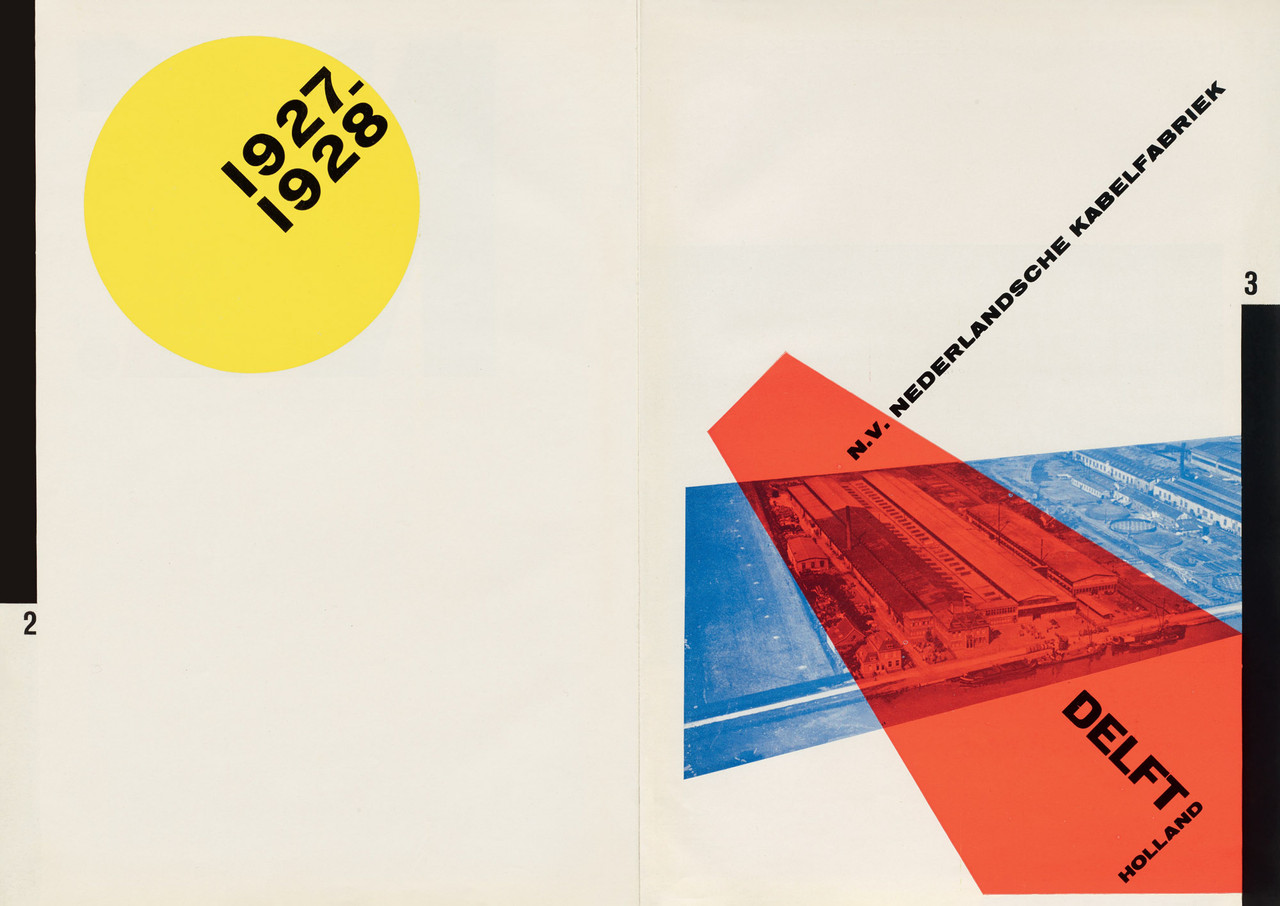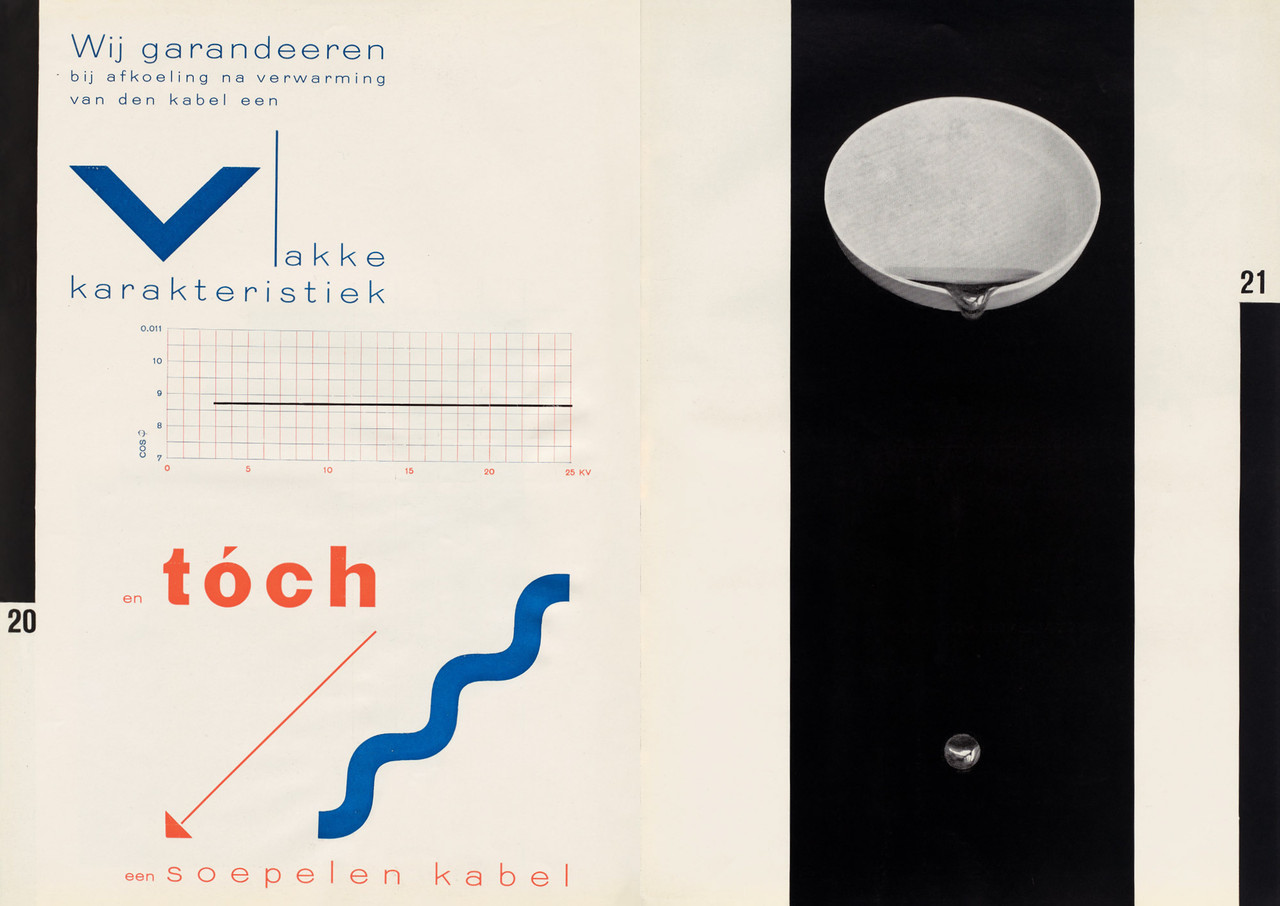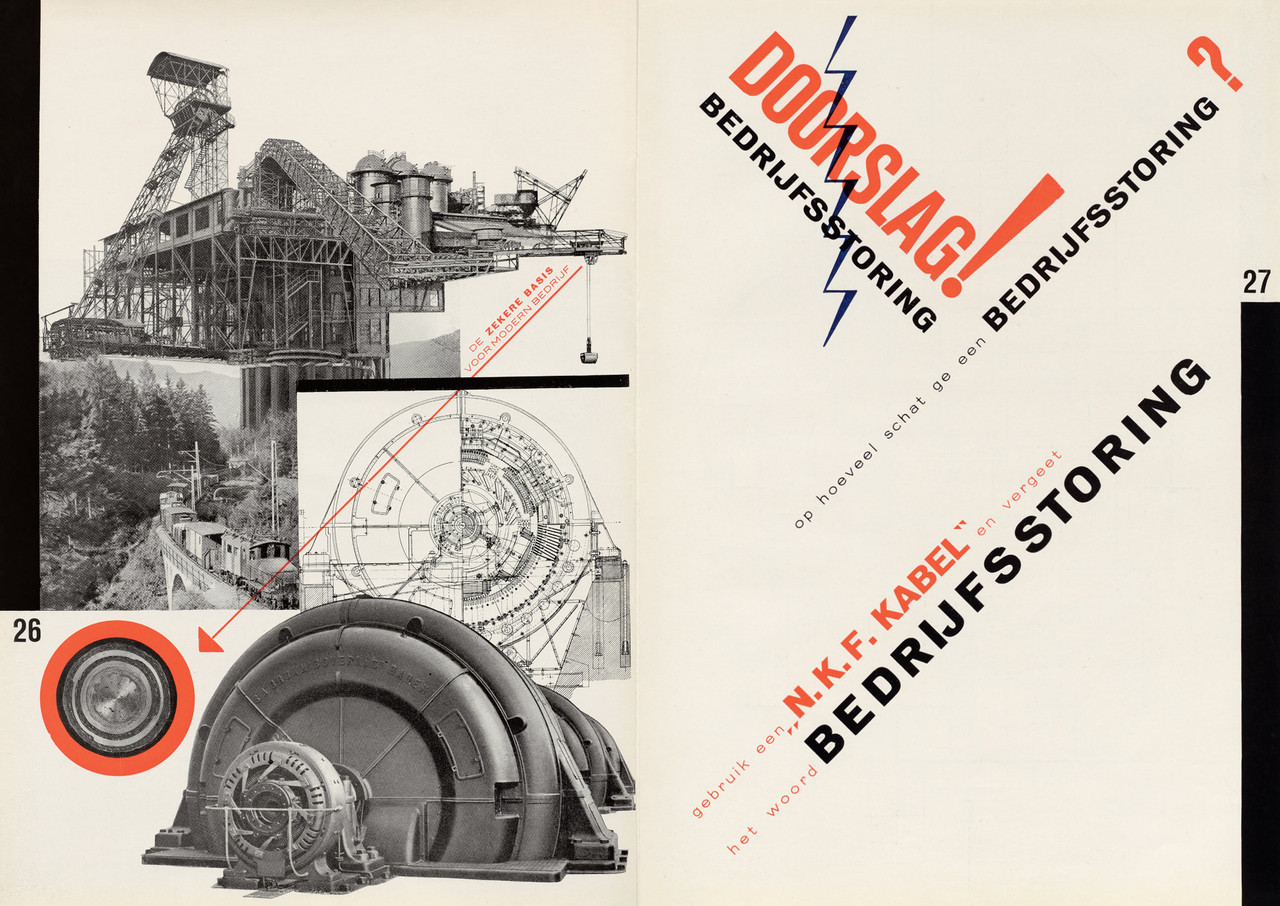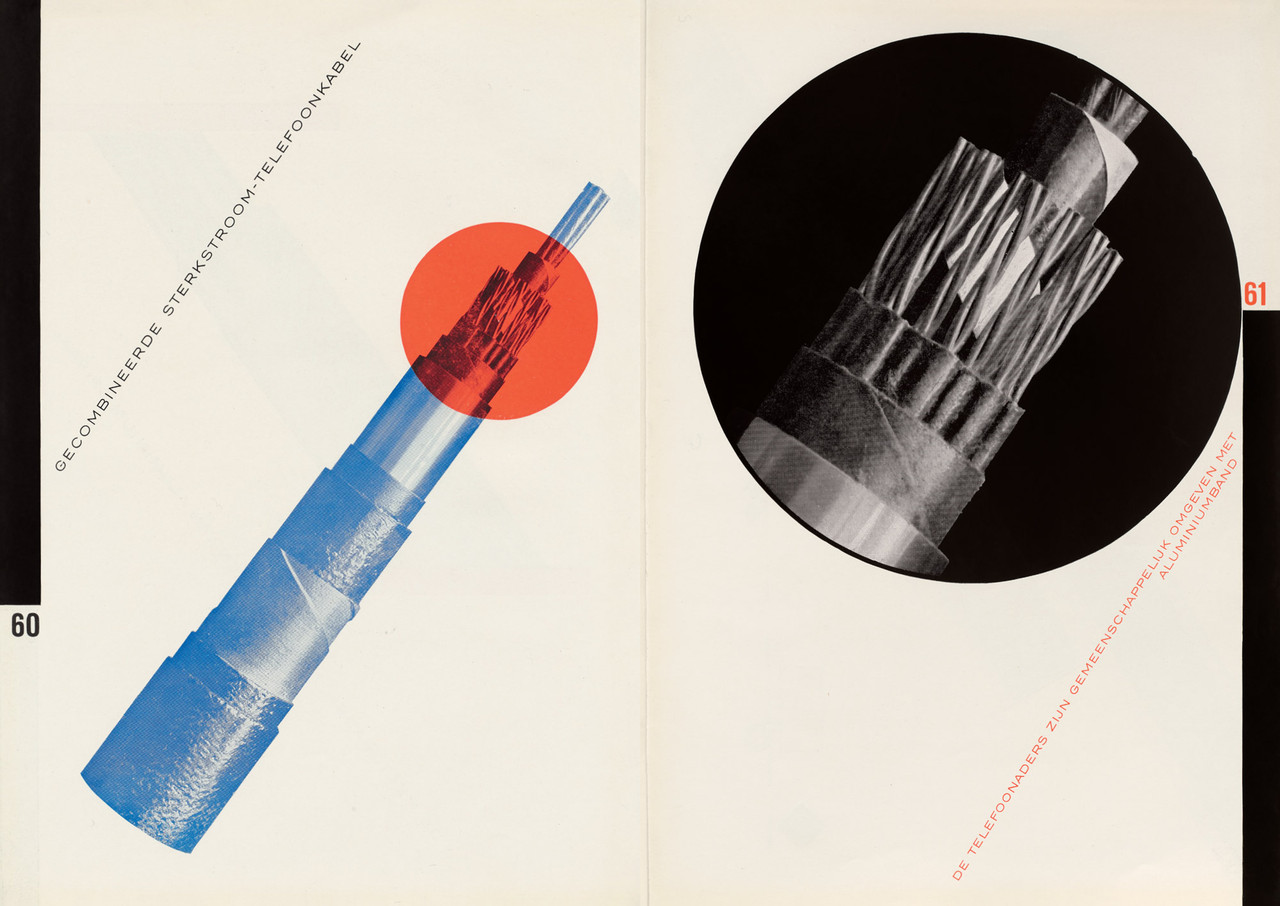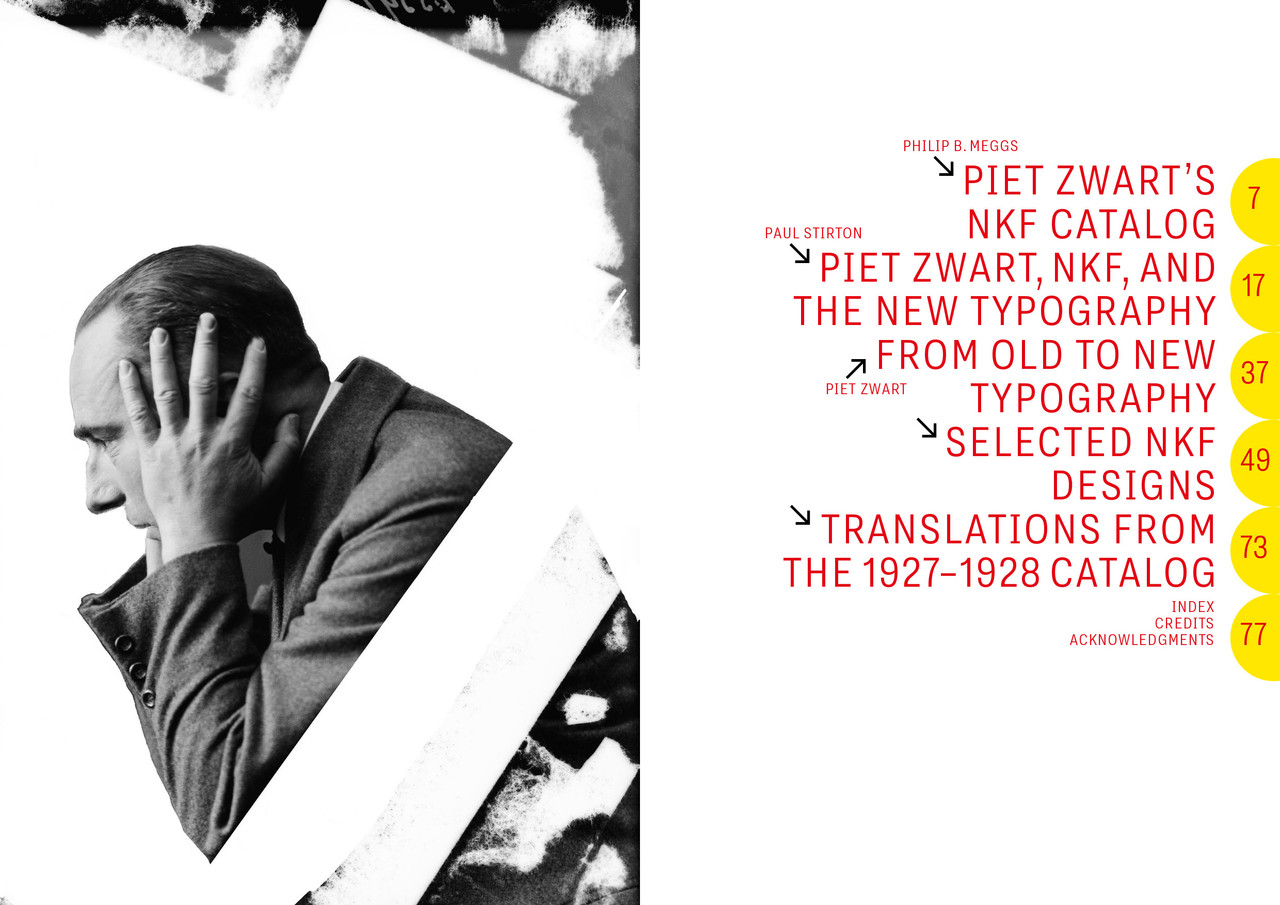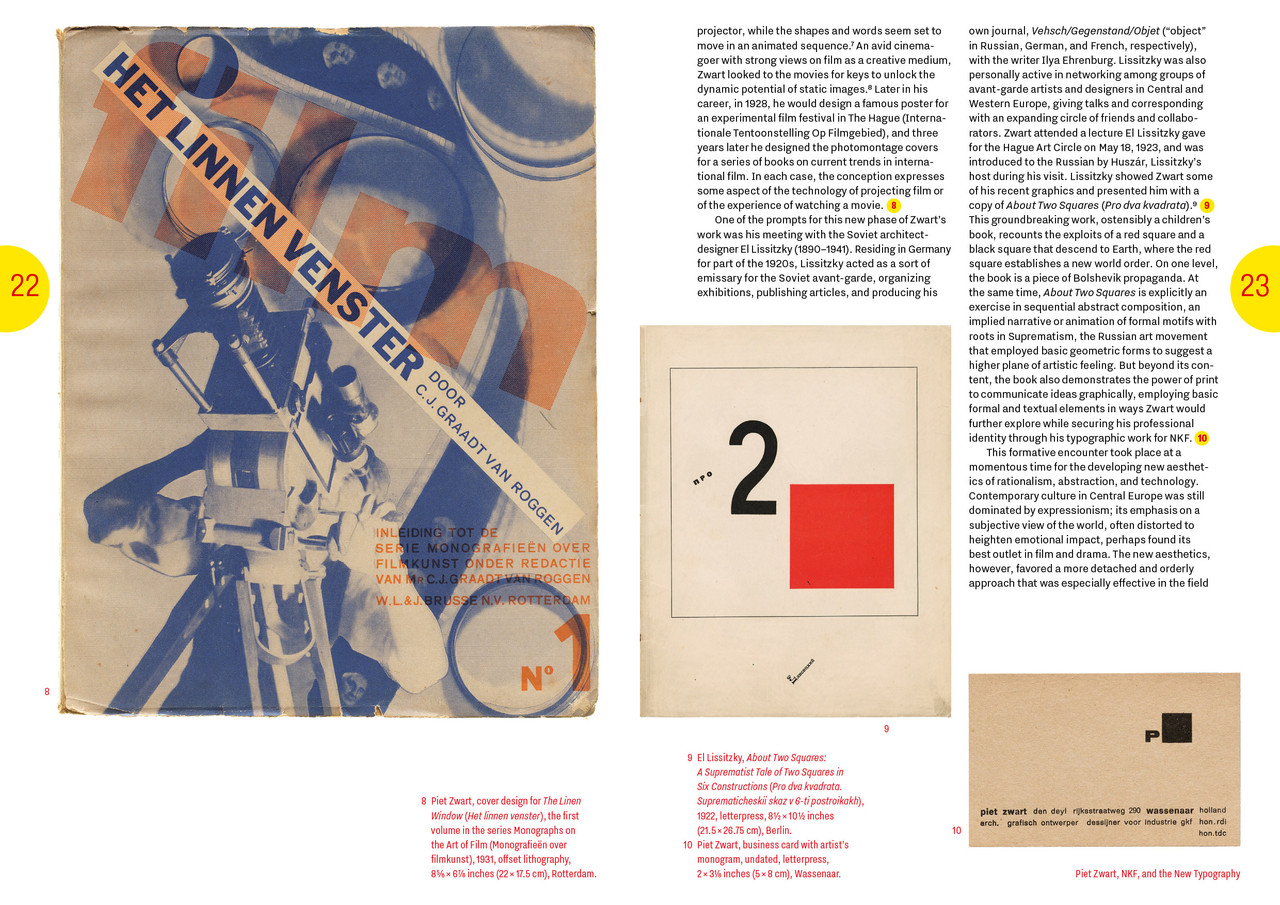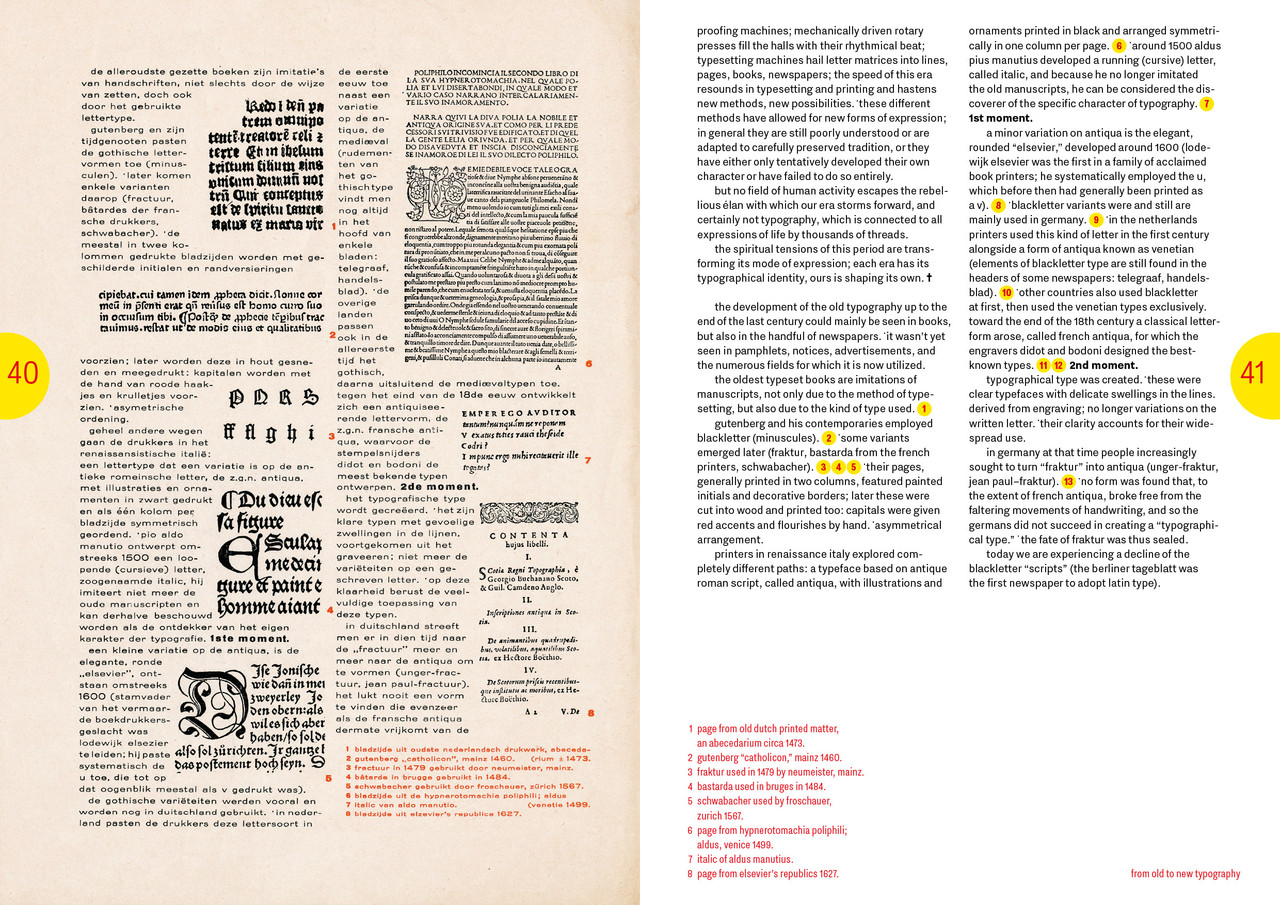
A founding masterpiece of modern typography from one of the twentieth century’s most ambitious designers
Widely regarded as the most important Dutch designer of the last century, Piet Zwart helped rewrite the rules of modern typography. His best-known work, an 80-page catalog for the electrical cable manufacturer Nederlandse Kabelfabriek Delft (NKF), is a remarkable case study in visual communication: combining razor-sharp photos, playful type compositions, expressive montages, and bold fields of color to transform the humble cable into a subject for experimental graphic design.
Received in avant-garde circles as a model of modernist New Typography, the catalog remains a sought-after touchstone of art and design history. This first-ever facsimile of Zwart’s NKF catalog reproduces the complete book with exacting details and in its original format. An accompanying critical supplement includes fascinating essays by design scholars Philip B. Meggs and Paul Stirton, a rich selection of rarely seen projects from Zwart’s decade-long relationship with NKF, and a translation of Zwart’s original manifesto.
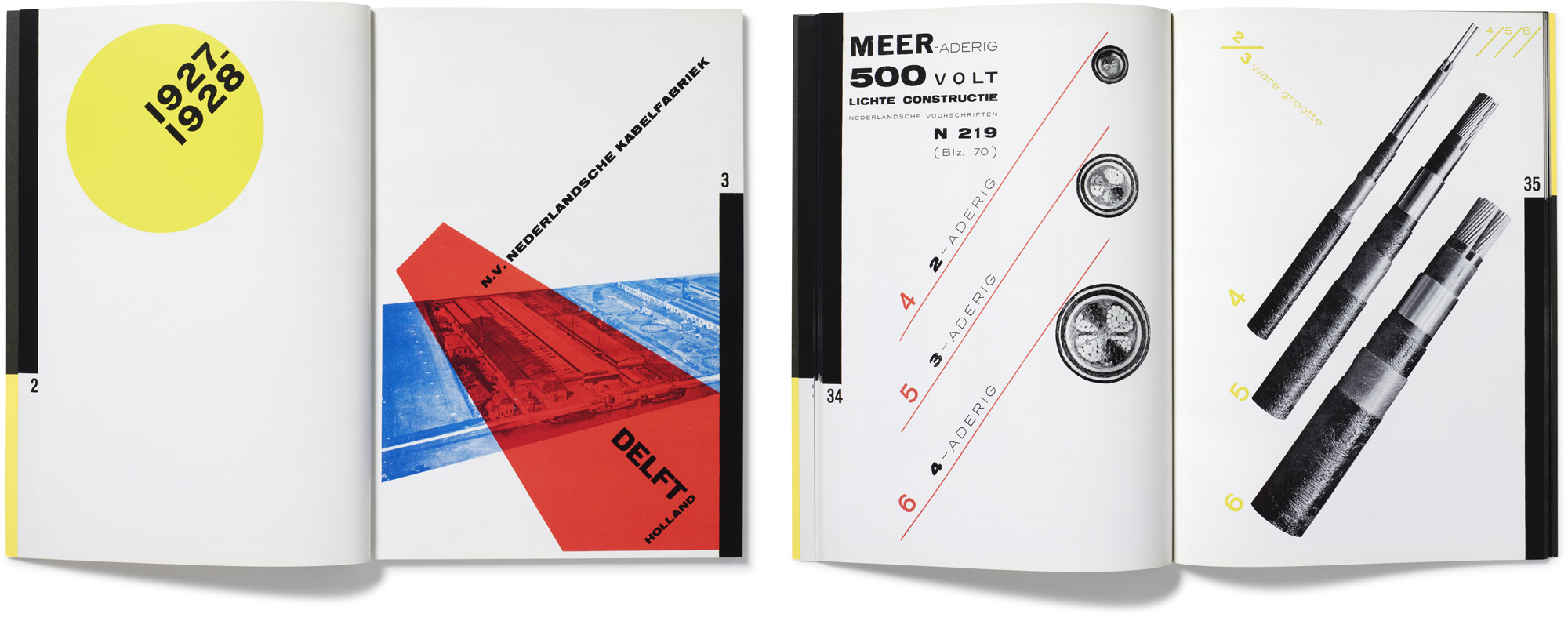
Contents
1. NKF Catalog: Facsimile Edition
2. Piet Zwart’s Avant-Garde Catalog for Standard Cables, 1927–1928
Piet Zwart’s NKF Catalog Philip B. Meggs → 7
Piet Zwart, NKF, and the New Typography Paul Stirton → 17
from old to new typography Piet Zwart → 37
Selected NKF Designs → 49
- Print Advertisements → 50
- Standardization Booklet → 56
- English-Language Catalog → 60
- Delft Cables → 66
Translations from the 1927–1928 Catalog → 73
Index, Credits, Acknowledgments → 77
About Piet Zwart
Piet Zwart was among the most influential Dutch designers of the twentieth century. Born in 1885, he studied applied arts, painting, and architecture first in Amsterdam from 1902 to 1907, then in Delft from 1913 to 1914. He taught classes in drawing and design throughout much of his life, including at the Rotterdam Academy of Visual Arts from 1919 to 1933. A prolific design critic, industrial designer, and photographer, he is best known for his work in graphic design for NKF (a cable company based in Delft), the Dutch postal service, and Bruynzeel. Zwart incorporated elements of fine art and architecture into his graphic design and often referred to himself as a “typotect”: part typographer, part architect. He was a member of the avant-garde advertising association Ring neuer Werbegestalter and an important figure in the network of European artists and designers who set the course for developments in graphic and typographic modernism.
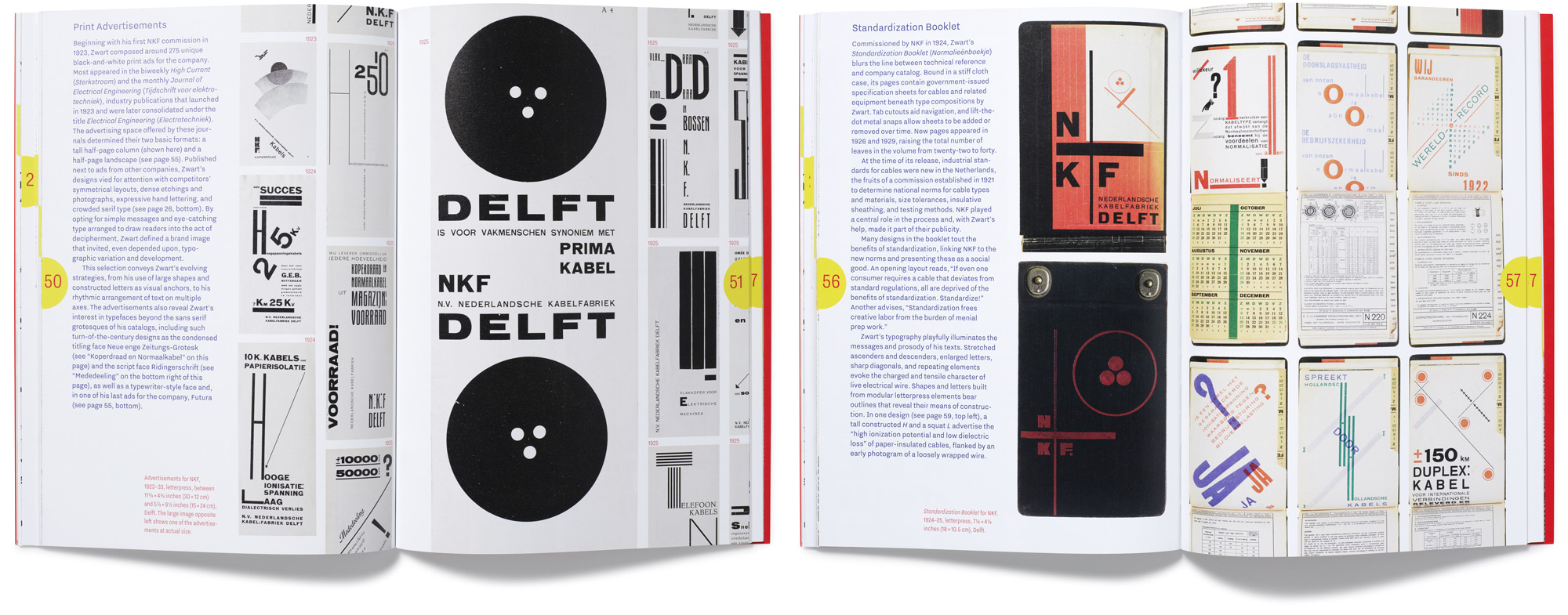
Praise
Letterform Archive’s edition of Piet Zwart’s legendary NKF catalog is a both a labor of love and an extraordinary feat of historical reclamation. This thrillingly faithful facsimile puts before us a complete artifact of graphic design, nearly 100 years old, that most of us have seen only in fleeting and frustratingly partial reproductions. And by supplementing it not only with generous commentary but with a full translation of its contents, the publishers restore its original context, adding depth and meaning to a seminal achievement in graphic design.
— Michael Bierut
A revelation. This new facsimile of Piet Zwart’s NKF cable catalog allows readers to experience typography (and cables) like never before. The top notch reader’s guide, with an essay by Paul Stirton, sheds light on the New Typography.
— Ellen Lupton, Betty Cooke and William O. Steinmetz Design Chair at MICA and author of Thinking with Type
One of the most progressive graphic designers of the 1920s and ’30s, Piet Zwart was among the pioneers of the New Typography.... He is known for many iconic period works that continue to influence designers today, mainly because they appear so contemporary—in fact, knowingly or not, many still follow Zwart’s principles published in his era-defining essay “from old to new typography”.... Faithfully printed, this facsimile of appears as though designed today, yet retains the original luster of those early years of The New Typography. This edition and supplementary guide is essential for studying the continuum of Euro-modern typography.